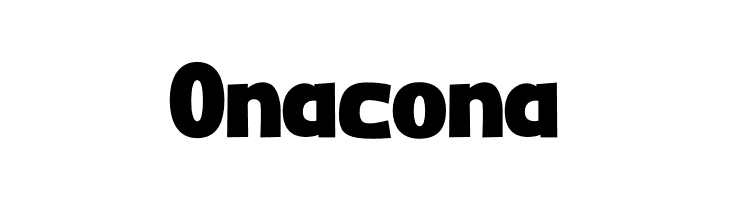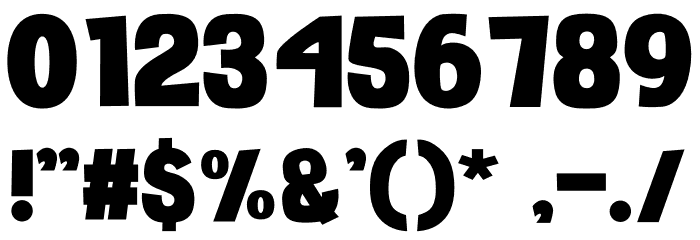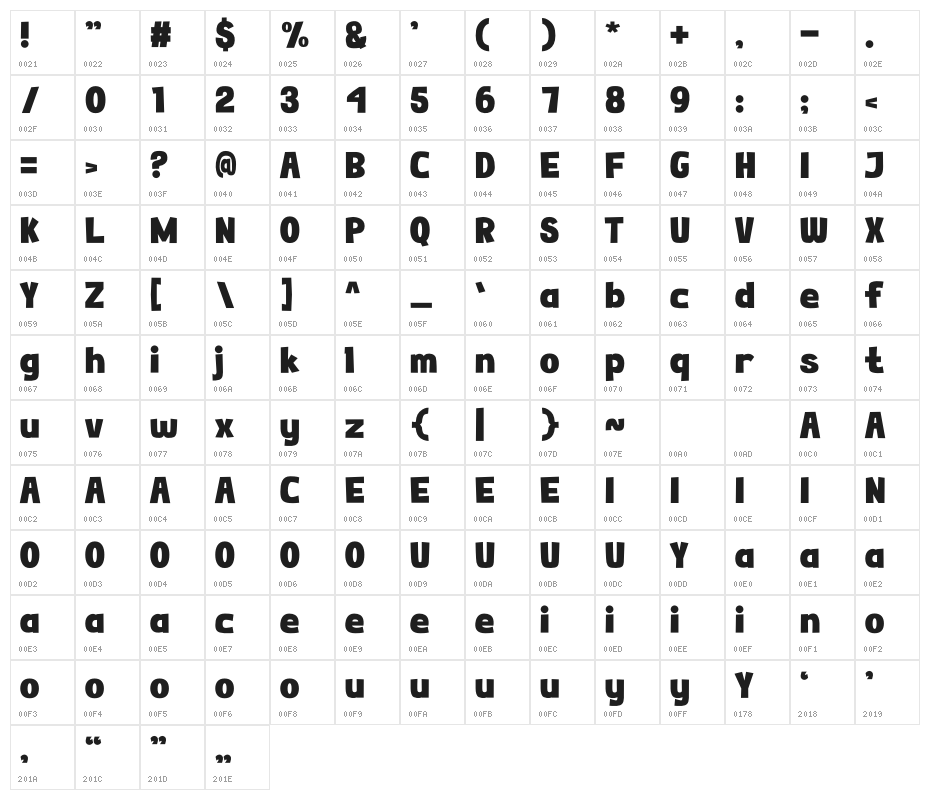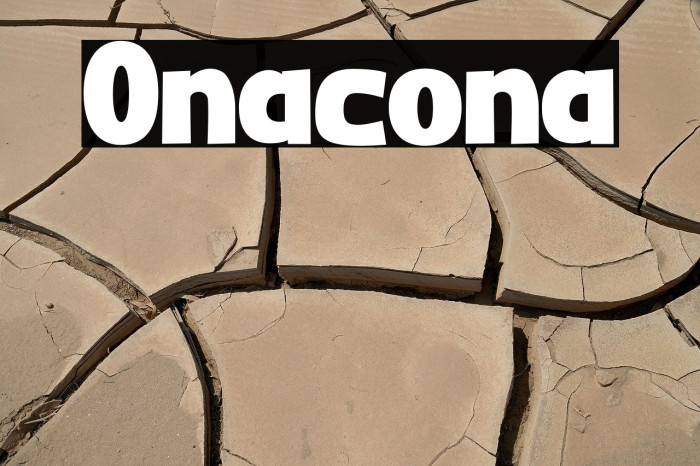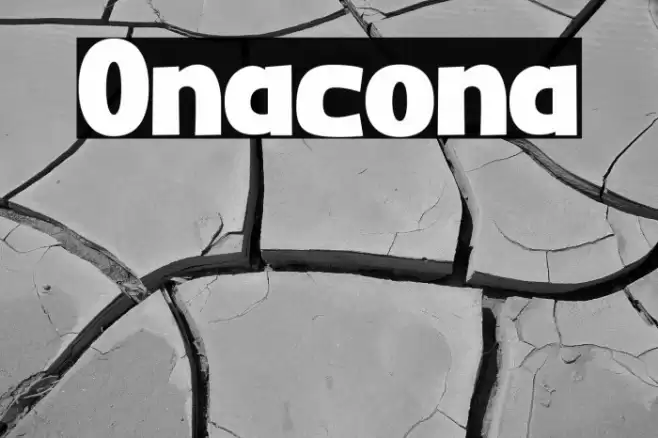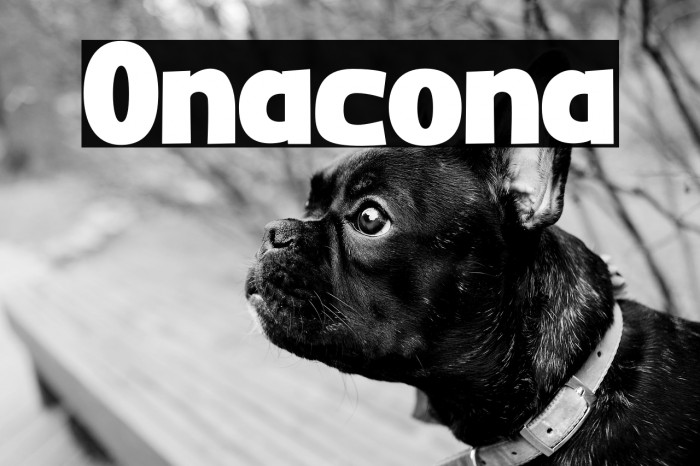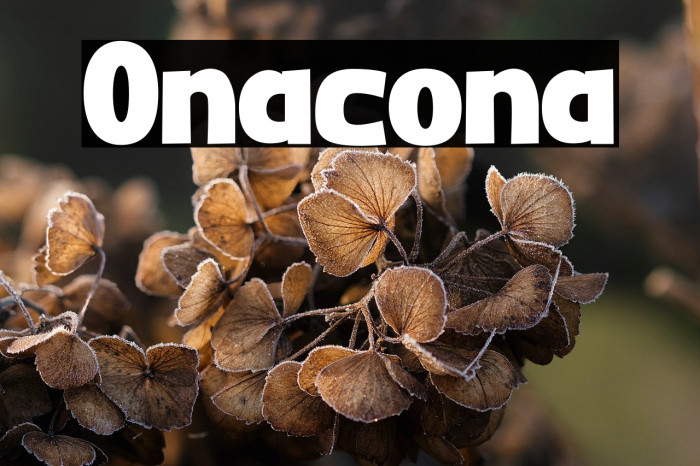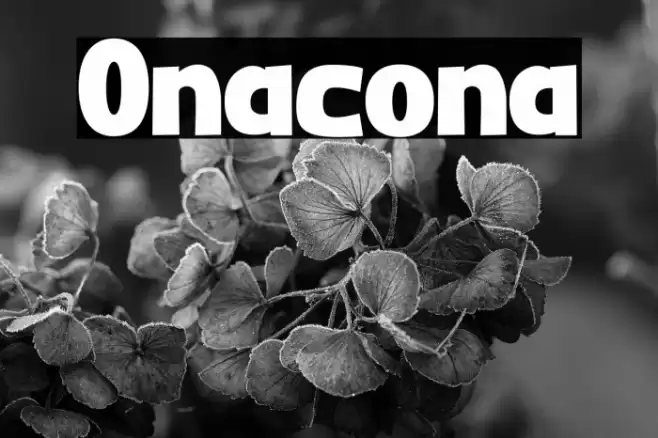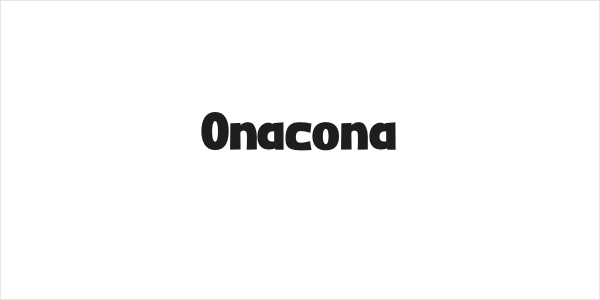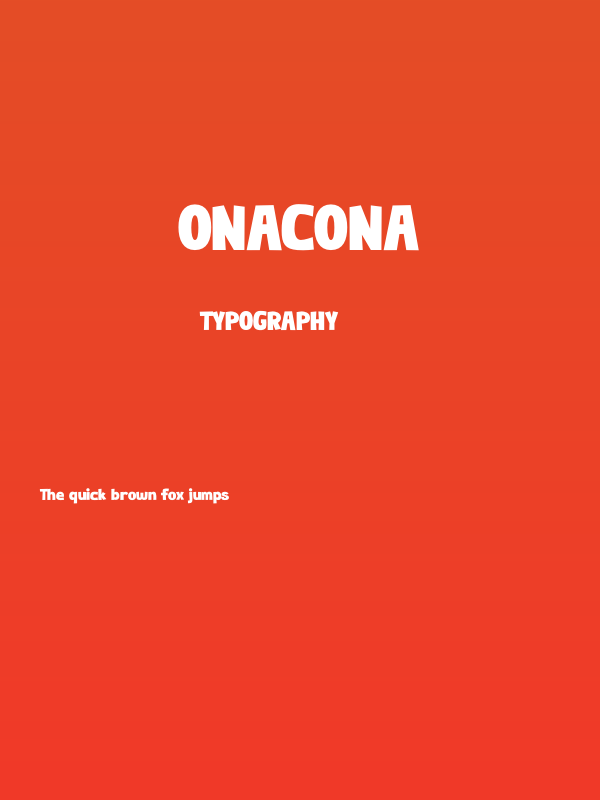
Onacona Font
| Style général | Modern, Playful |
| Projets proposés | Ideal for children's books, playful branding, posters, and any project requiring a fun and approachable typeface. |